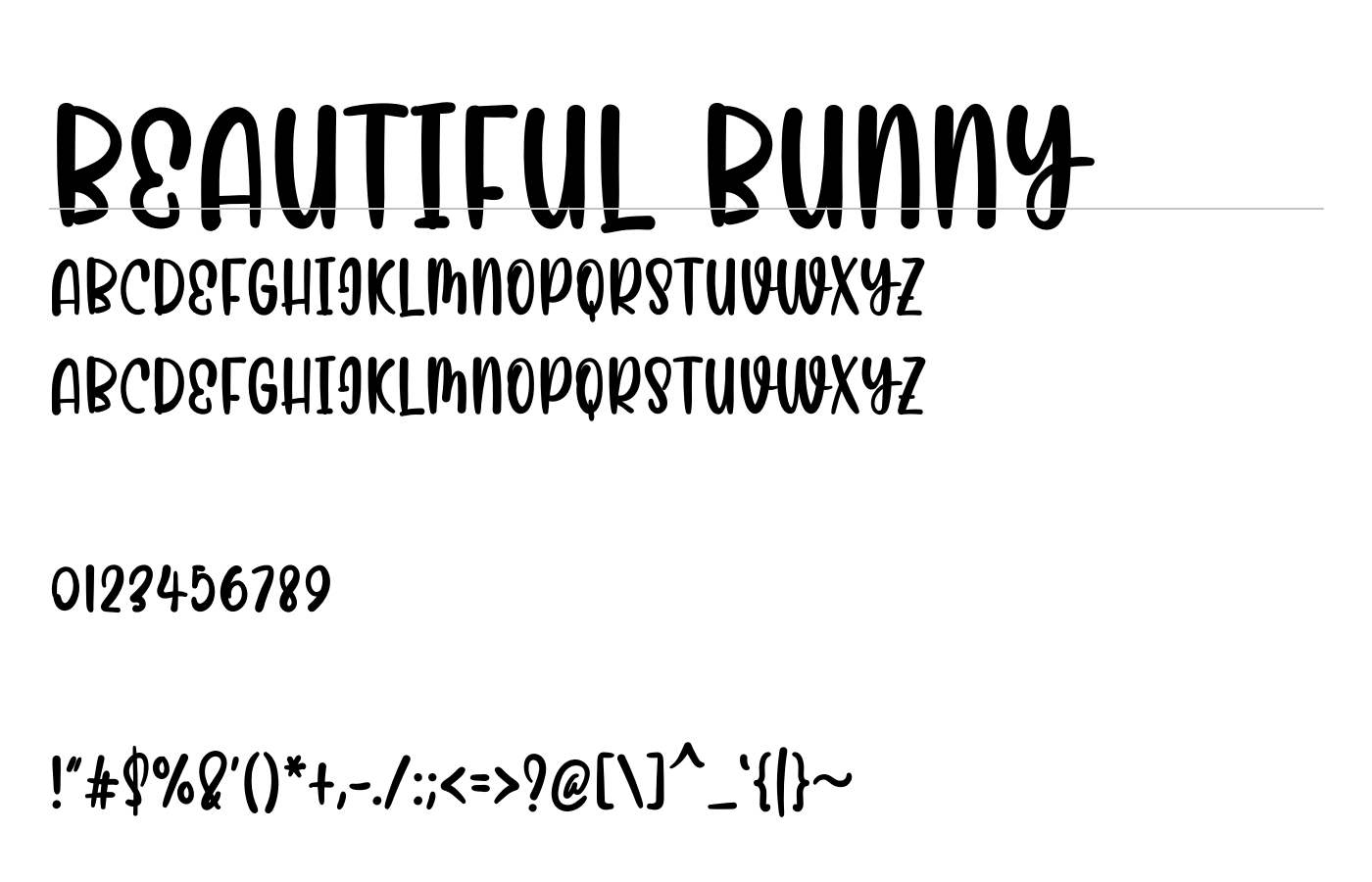
Beautiful Bunny Font is a playful and casual sans serif typeface with a hand-drawn feel, featuring rounded strokes and a slightly irregular, charming style. Its lively letterforms and quirky character shapes make it ideal for fun, friendly branding, children’s products, or informal headlines where a warm, approachable tone is desired. This font works well in creative projects that need personality and a touch of whimsy.
Beautiful Bunny Font
About Beautiful Bunny Font